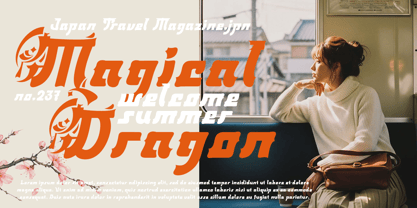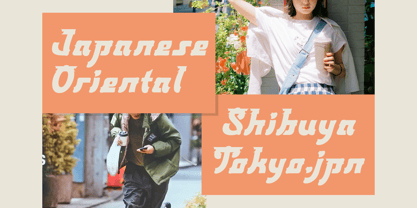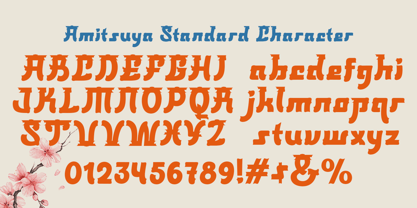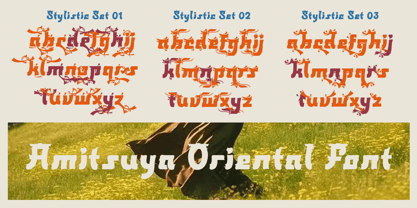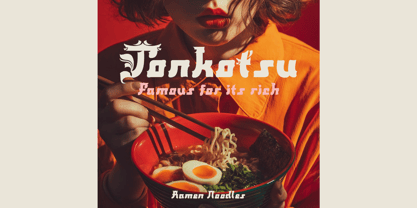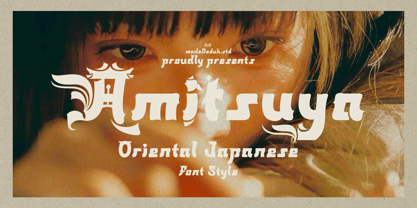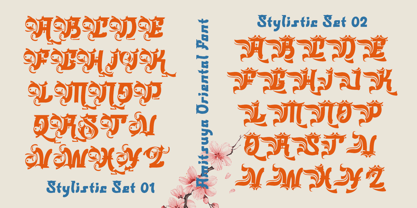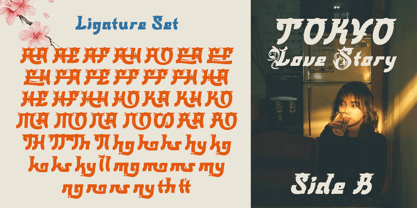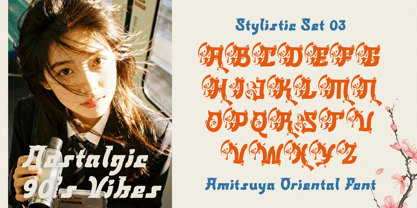
Amitsuya
by madeDeduk
The Amitsuya Font Family was designed by madededuk and published by madeDeduk. Amitsuya contains 2 styles and family package options. More about this family
Introducing Amitsuya, the font shown in the image is a typographic design inspired by Japanese visual style. This can be seen from the letterforms that feature decorative ornaments, artistic curves, and detailed elements that resemble aspects of Japanese art. Designs like this often take inspiration from the characteristics of Japanese aesthetics, which emphasize the beauty of lines, balance of form, and distinctive decorative details. Although the font uses the Latin alphabet, its visual appearance is designed to create a strong Japanese atmosphere that is easily recognizable. In graphic design, typography with a Japanese style is often used to create a unique and attractive visual identity. The decorative shapes of the letters in this font give an artistic and exotic impression that is closely associated with Japanese visual culture. These design elements can remind viewers of both traditional and modern Japanese artistic styles commonly seen in illustrations, posters, and creative typographic works. Therefore, this type of font is very suitable for design projects that aim to present a Japanese theme, whether in digital or printed media.